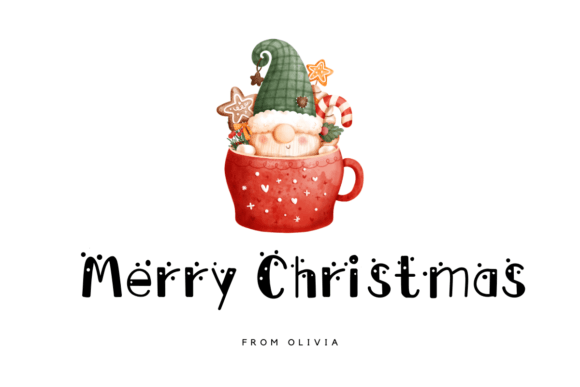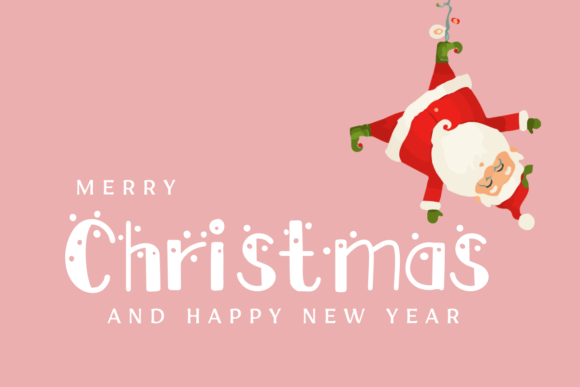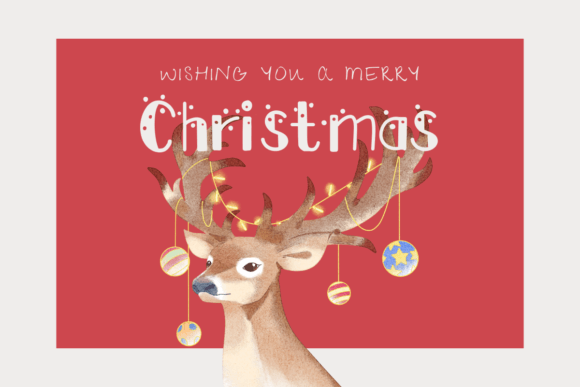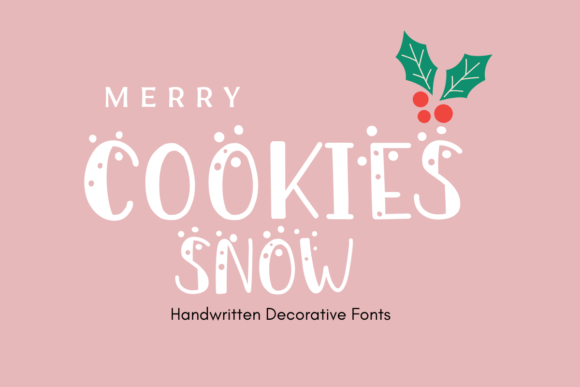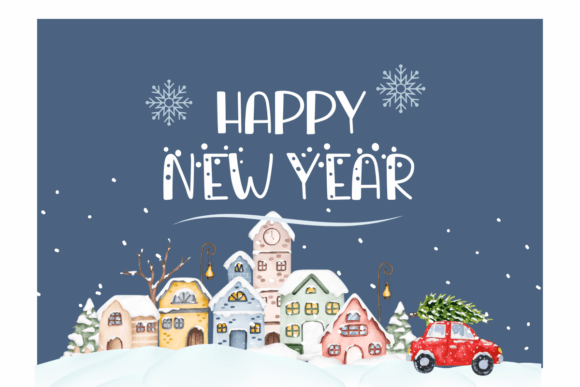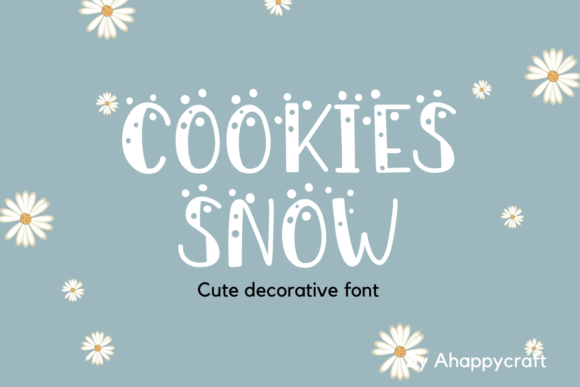
Cookies Snow Font: A Festive Decorative Font for Winter
As the winter season approaches, designers and crafters are on the lookout for fonts that capture the magic and wonder of this time of year. If you’re searching for a font that embodies the festive spirit, look no further than the Cookies Snow Font. This gorgeous decorative font is a perfect addition to any font library, and its versatility makes it an incredible asset for a wide range of projects.
The Cookies Snow Font: A Winter Wonderland
The Cookies Snow Font is a beautiful, hand-crafted font that is designed to evoke the feeling of winter wonderland. Its intricate and delicate design makes it perfect for a variety of projects, from holiday-themed designs to winter-inspired crafts. The font’s unique and elegant style is sure to add a touch of sophistication and whimsy to any creation.
Why You’ll Love the Cookies Snow Font
So, what makes the Cookies Snow Font so special? Here are just a few reasons why you’ll love adding this font to your library:
- Festive and Fun: The Cookies Snow Font is the perfect way to add a touch of festive fun to your designs. Its playful and whimsical style makes it ideal for holiday-themed projects, from Christmas cards to winter wonderland-inspired crafts.
- Versatile: While the Cookies Snow Font is perfect for winter-themed projects, its versatility means it can be used for a wide range of designs. Whether you’re creating a logo, a poster, or a social media graphic, this font is sure to add a touch of elegance and sophistication.
- Elegant and Refined: Despite its playful style, the Cookies Snow Font is also incredibly elegant and refined. Its intricate design makes it perfect for high-end designs, from luxury branding to premium packaging.
- Easy to Use: The Cookies Snow Font is incredibly easy to use, even for designers who are new to working with decorative fonts. Its clear and legible design makes it perfect for a wide range of projects, from large-scale posters to small-scale social media graphics.
How to Use the Cookies Snow Font
So, how can you use the Cookies Snow Font in your designs? Here are a few ideas to get you started:
- Holiday-Themed Designs: The Cookies Snow Font is perfect for holiday-themed designs, from Christmas cards to Hanukkah greetings. Use it to create festive and fun designs that capture the spirit of the season.
- Winter Wonderland-Inspired Crafts: If you’re a crafter, the Cookies Snow Font is a great addition to your toolkit. Use it to create winter wonderland-inspired crafts, from snowflake decorations to winter-themed journal pages.
- Luxury Branding: The Cookies Snow Font’s elegant and refined style makes it perfect for luxury branding projects. Use it to create high-end logos, packaging, and marketing materials that showcase your brand’s sophistication and style.
Tips and Tricks for Working with the Cookies Snow Font
Here are a few tips and tricks to help you get the most out of the Cookies Snow Font:
- Experiment with Different Sizes: The Cookies Snow Font looks great in a variety of sizes, from large-scale posters to small-scale social media graphics. Experiment with different sizes to find the one that works best for your project.
- Pair it with Other Fonts: The Cookies Snow Font pairs well with a variety of other fonts, from bold and modern to elegant and refined. Experiment with different font pairings to find the one that works best for your project.
- Add a Personal Touch: The Cookies Snow Font is perfect for adding a personal touch to your designs. Use it to create custom monograms, decorative borders, or other design elements that showcase your personality and style.
The Cookies Snow Font is a gorgeous decorative font that is perfect for designers and crafters who want to add a touch of festive fun and elegance to their projects. Its versatility, elegance, and whimsy make it an incredible asset for any font library, and its ease of use makes it perfect for a wide range of designs. Whether you’re creating holiday-themed designs, winter wonderland-inspired crafts, or luxury branding materials, the Cookies Snow Font is sure to be a valuable addition to your toolkit.